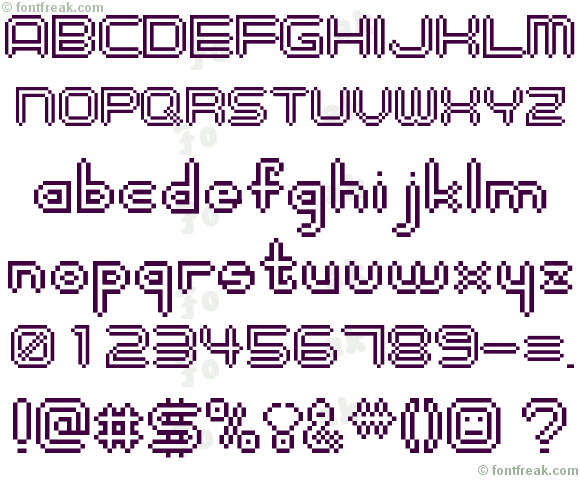
digitalisMAN
About DigitalisMAN
DigitalisMAN by Etherbrian is a captivating display font that merges modern aesthetics with a distinctively digital vibe. As a freeware typeface, it is accessible to all, making it a versatile choice for a variety of design projects. This font features a unique sans-serif style with sharp, geometric lines that offer a contemporary look. The stroke weight is consistent, providing a clean and polished appearance, while the spacing is thoughtfully designed to enhance readability without sacrificing style. The typeface exhibits minimal contrast, lending it a cohesive visual identity that stands out in both digital and print formats.
DigitalisMAN is particularly well-suited for projects that require a modern touch. Its striking appearance makes it an excellent choice for tech company branding, promotional materials, and eye-catching website headings. Additionally, this font shines in the creation of event posters, where its bold presence can effectively grab attention. Graphic designers will find it especially appealing for developing innovative logos or product packaging, while small business owners can leverage it for dynamic marketing campaigns that resonate with a tech-savvy audience.
Targeted primarily at graphic designers, small business owners, and content creators, DigitalisMAN offers a fresh alternative to conventional typefaces. Its unique style is perfect for those looking to make a statement in their work, whether it’s through digital media or print.
What sets the DigitalisMAN font apart is its ability to balance modernity with functionality. Its clean lines and geometric forms evoke a sense of innovation, making it ideal for forward-thinking projects. With the DigitalisMAN font free download, you can infuse your designs with a distinctive character that reflects contemporary trends and captures the essence of digital culture.